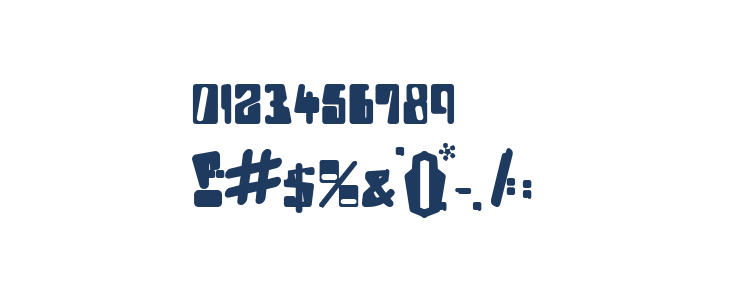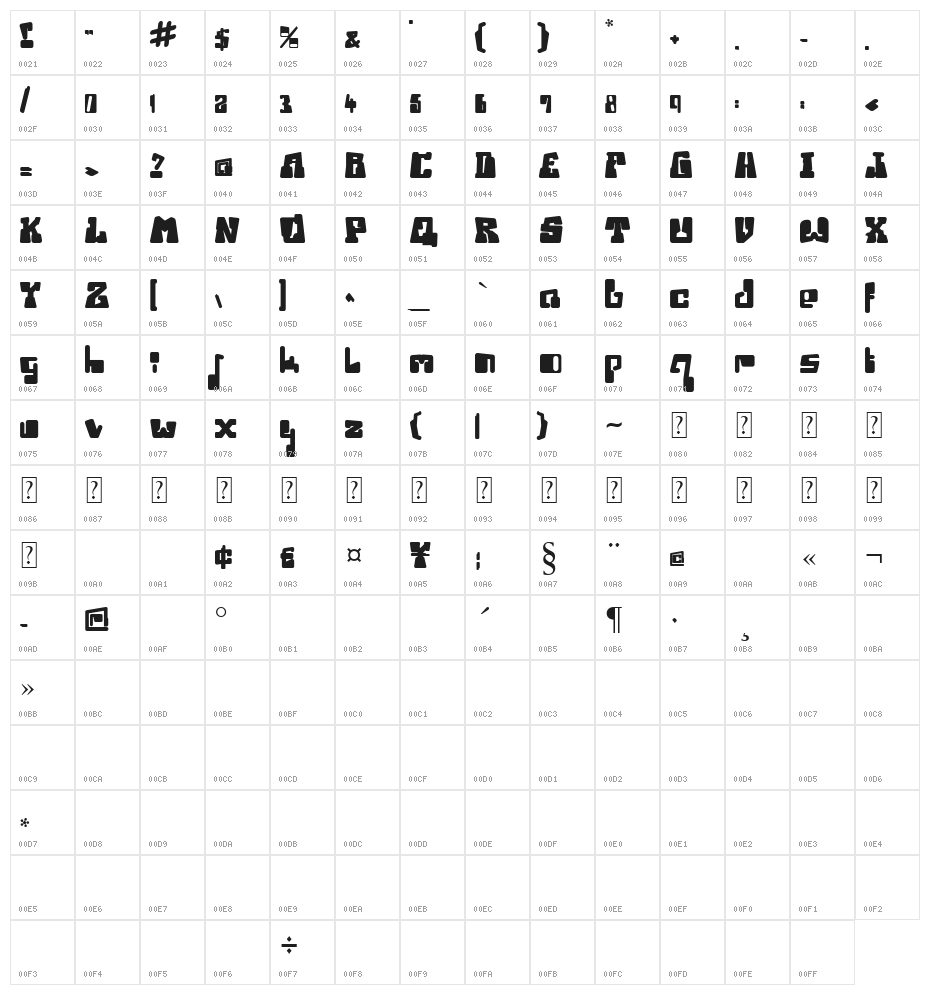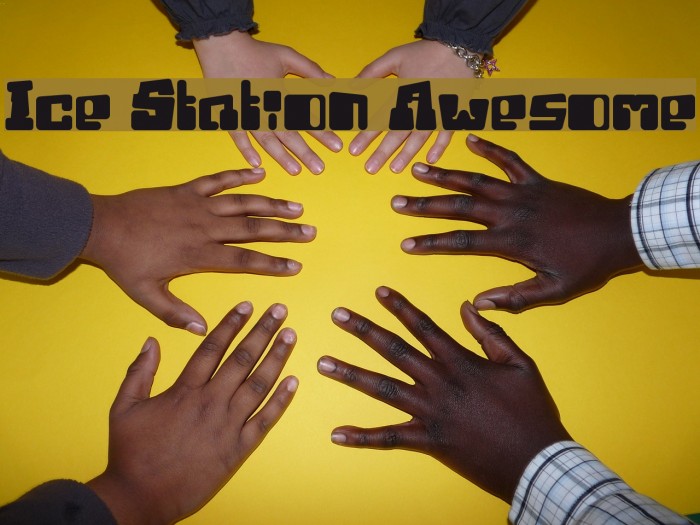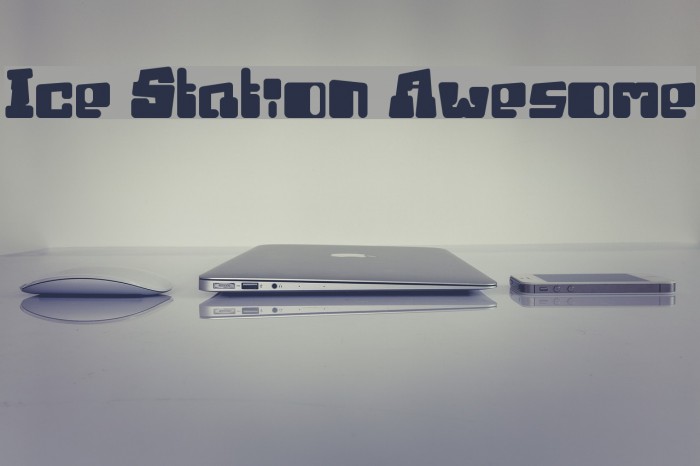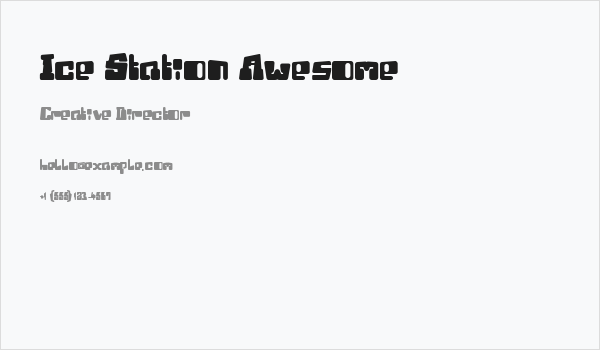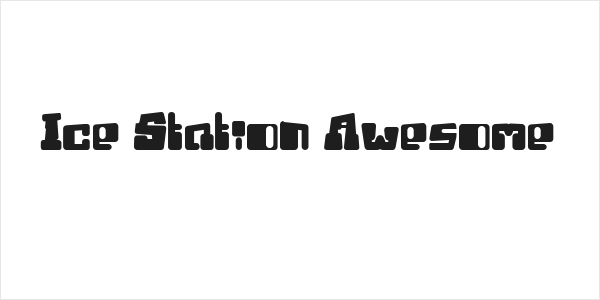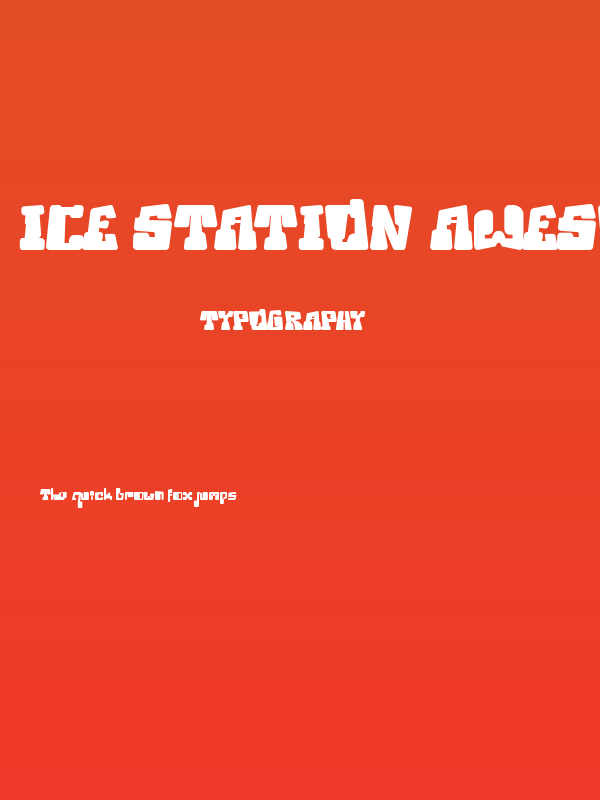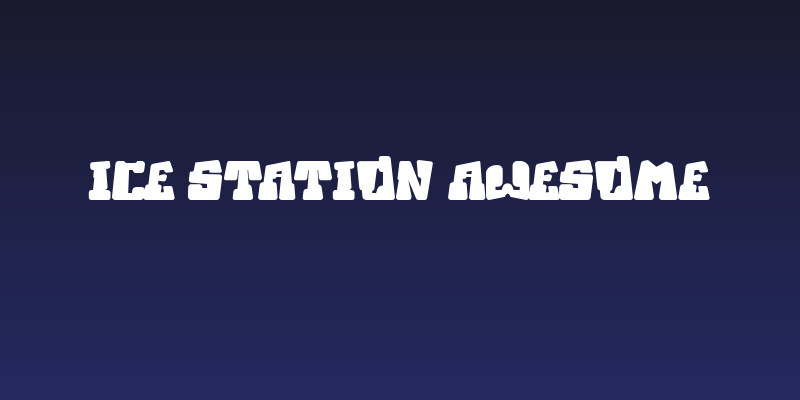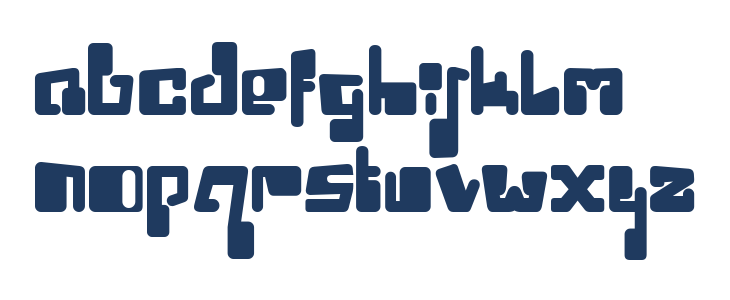
Ice Station Awesome Font
Ice Station Awesome Description
This font features a bold, blocky design with a distinctly modern and playful aesthetic. The characters are heavily stylized, with thick strokes and a somewhat geometric structure. The uppercase and lowercase letters maintain a consistent weight, contributing to a cohesive appearance. The numbers and special characters follow the same design principles, ensuring uniformity across all elements. The font's unique style makes it stand out, with each character exhibiting a sense of movement and energy. The overall look is both eye-catching and versatile, suitable for a variety of creative applications.